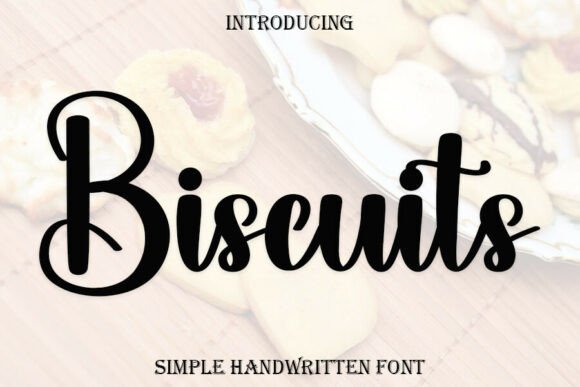
Have you ever stared at a blank sheet of paper, waiting for the perfect idea to strike? Maybe it was a late-night brainstorming session or a creative block that needed a gentle nudge. Whatever the case, the spark that ignites your imagination can be a game-changer. For designers, it’s all about finding that unique element that sets their work apart from the rest.
Enter Biscuits Font, a delicate handwritten font that’s designed to add a touch of whimsy and personality to your designs. Whether you’re crafting a heartfelt letter, designing an invitation, or creating a food product label, Biscuits Font is the perfect addition to elevate your work. Its unique charm makes it a valuable asset for designers looking to infuse their creations with a sense of warmth and character.
With Biscuits Font, the possibilities are endless. From titles and headings to food packaging and labels, this versatile font is sure to become a staple in your design toolkit.
Biscuits Font Key Features
• Font Family: Biscuits Font comes in a single font family, offering a unique and distinctive look for your designs.
• Unique Characteristics: Biscuits Font features a distinctive, handwritten style with a touch of imperfection, making it perfect for adding a personal touch to your designs.
Biscuits Font Review
Overall, I think Biscuits Font is a fun and quirky choice for designers looking to add some personality to their projects. ✨ Here are some things that work well:
• Playful, cursive feel that’s perfect for illustrations and hand-lettering projects
• Includes a wide range of characters, including punctuation and symbols
• Easy to customize with OpenType features like ligatures and swashes
However, there are some limitations to keep in mind: ⚠️
• Lack of versatility in terms of font weights and styles
• May not be suitable for large blocks of text due to its cursive nature
• Some characters may be difficult to read or distinguish from one another
Overall, I think Biscuits Font is a great choice for designers who want to add some whimsy to their projects, but may not be the best fit for more formal or professional work. With a little creativity and experimentation, it’s definitely possible to get some great results with this font.
Some common use cases for the Biscuits Font include:
• Food and beverage branding
• Children’s party invitations
• Wedding stationery
For maximum impact, use the Biscuits Font in conjunction with playful graphics and bright colors.